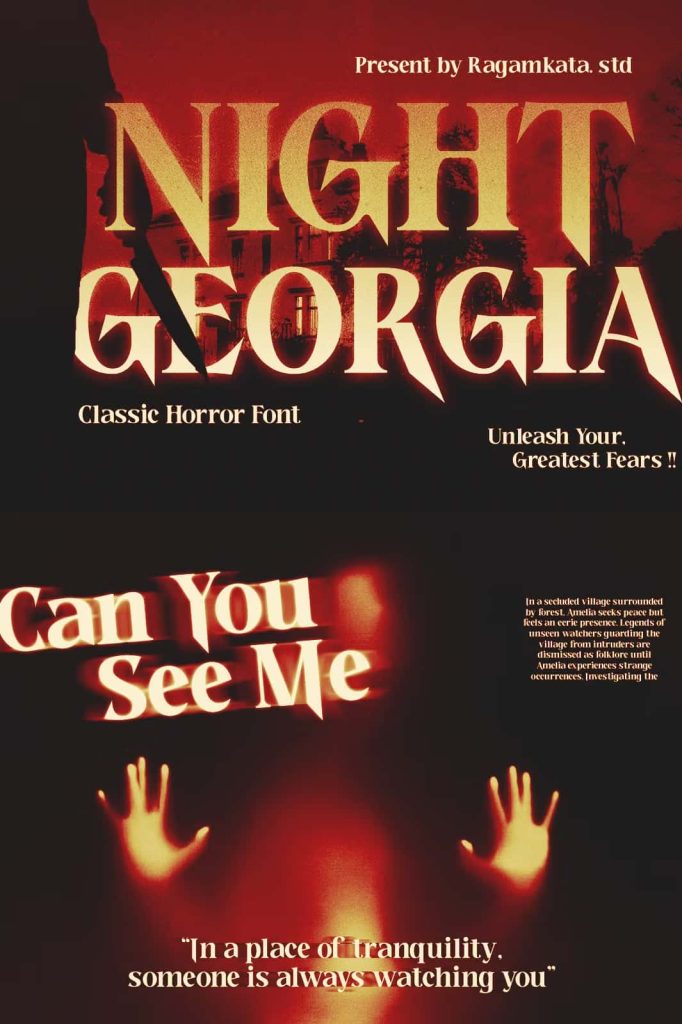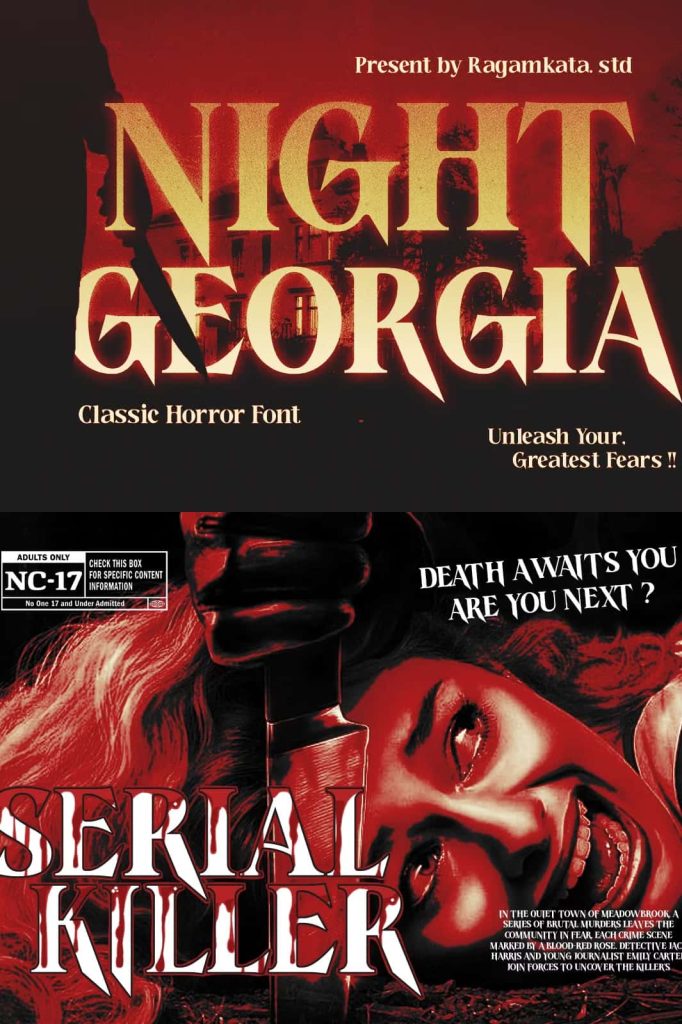
Night Georgia – Vintage Horror Display Font for Dramatic Visual Impact
Night Georgia introduces a powerful blend of spine-chilling horror elements and refined vintage aesthetics. Designed to capture attention instantly, this display font takes strong inspiration from the iconic 1970s horror movie posters. The design features sharp, spiky serifs and an elongated condensed structure that creates tension, suspense, and bold visual character. Every stroke of Night Georgia is crafted to convey drama, mystery, and retro cinematic energy, making it the ideal font choice for designers who want to produce strong emotional reactions through typography.
A Perfect Balance of Classic Horror and Vintage Elegance
Night Georgia stands out because it merges expressive horror-style lettering with classic vintage elegance. Rather than relying solely on chaotic forms typically seen in horror fonts, Night Georgia delivers balance and structure. Its condensed height and pointed serifs combine to form a typeface that feels menacing yet sophisticated. This makes the font versatile for both modern and retro-themed projects. Whether you want a nostalgic throwback or a fresh and edgy design, Night Georgia offers the visual intensity needed to make every word unforgettable.
Designed to Evoke Suspense and Visual Drama
This font uses elongated proportions that draw the eye vertically, creating a sense of looming fear and cinematic tension. Each character feels deliberate, sharp, and impactful. The spiky serif style enhances the horror effect without overwhelming legibility. Designers can confidently apply Night Georgia to headings, packaging, posters, branding titles, event promotions, and editorial layouts seeking dramatic storytelling. With its authentic vintage horror personality, Night Georgia immediately transforms ordinary text into powerful visual statements.
Ideal Uses for Night Georgia Horror Display Font
Night Georgia works beautifully across various creative industries. Because of its bold style and intense visual identity, designers often use this font for:
- Horror movie titles and retro film posters
- Book covers and dark fantasy titles
- Album artwork and music promotional graphics
- Video thumbnails and cinematic trailer typography
- Event posters, festival graphics, and Halloween branding
- Packaging for gothic, vintage, or mystery-themed products
- Logo design for creative studios, apparel lines, and themed merchandise
Why Choose Night Georgia for Your Next Design Project?
Night Georgia offers a strong visual voice that communicates intensity and emotional depth. The font’s unique structure allows designers to experiment freely with composition, making every headline gripping and memorable. If your project requires atmosphere, suspense, and stylistic elegance, this font delivers reliability and professional design quality.
As a display font, Night Georgia performs best in larger sizes where its distinctive forms are fully visible and appreciated. It invites designers to create dramatic and visually bold concepts that feel alive and cinematic. When combined with textured backgrounds, high-contrast imagery, or vintage color palettes, the results feel striking and theatrical.
Experience the Power of Night Georgia
Night Georgia is more than a typeface. It is a storytelling tool. It brings emotion to the surface and ensures every message stands loud and clear. If you want to elevate your creative work with atmosphere, nostalgia, and stunning horror-inspired character, Night Georgia is a perfect choice.
Use Night Georgia to turn ordinary text into unforgettable visual scenes that command attention and spark imagination. Add this remarkable horror display font to your collection and experience dramatic typography like never before.